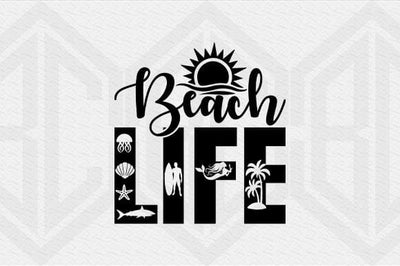
Beach Life SVG Summer Beach Quote Cut File for Cricut & Silhouette
Bring the relaxing, sun-soaked vibes of the coast to your next project with this Beach Life SVG design! Featuring bold block letters filled with tropical graphics—like palm trees, seashells, surfers, and marine life—this design is perfect for your summer crafting needs.